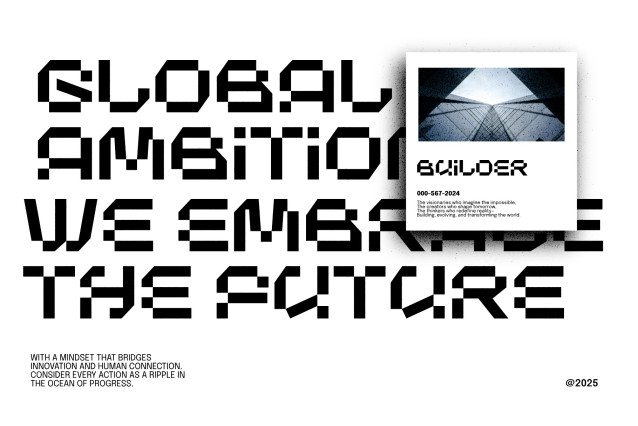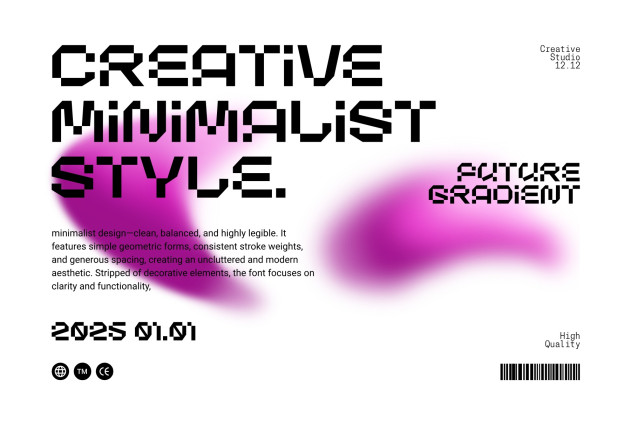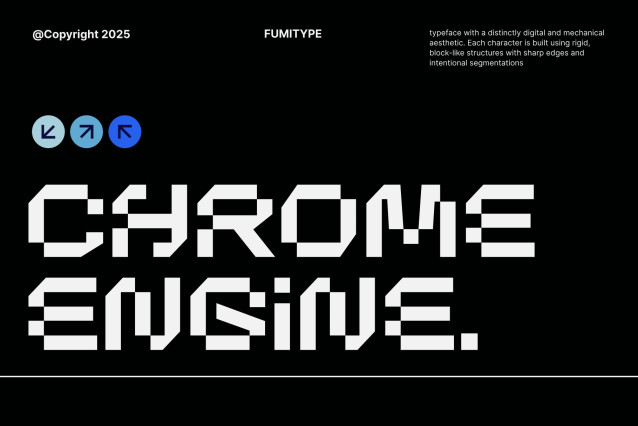
Chrome Engine Font
Chrome Engine Font is a bold, futuristic typeface forged from digital precision and mechanical grit. Built with block-like geometry, sharp edges, and segmented forms, it captures the raw energy of machines and the sleek aesthetics of tomorrow. Perfect for sci-fi branding, tech interfaces, futurism visuals, and experimental design, Chrome Engine is not just a typeface; it powers your vision.